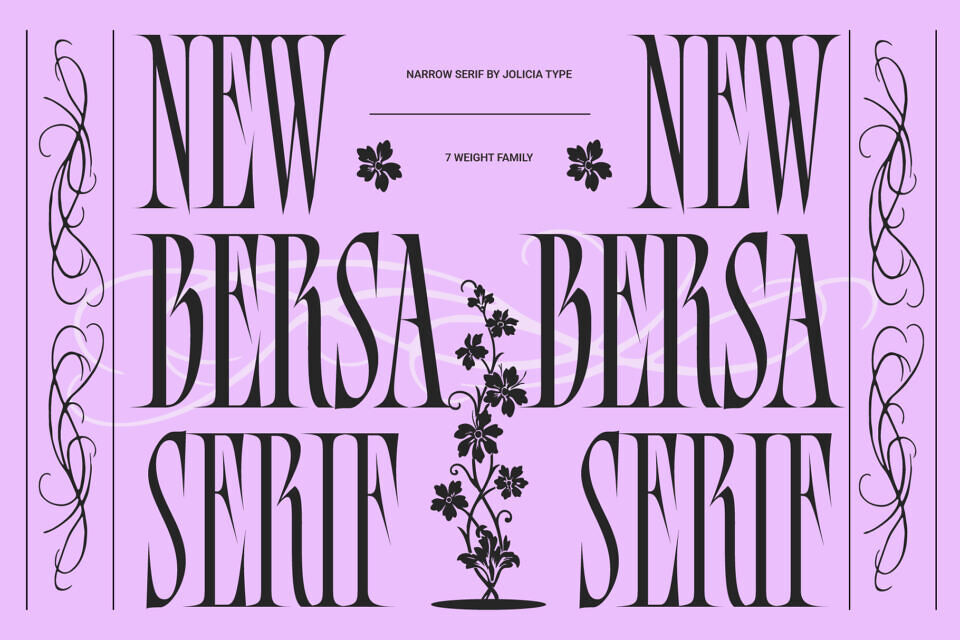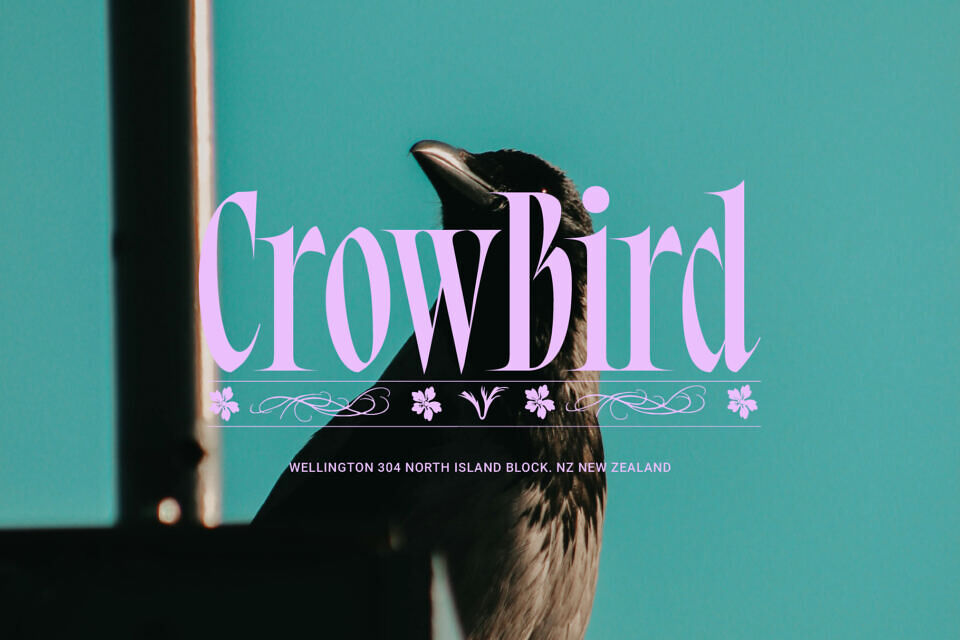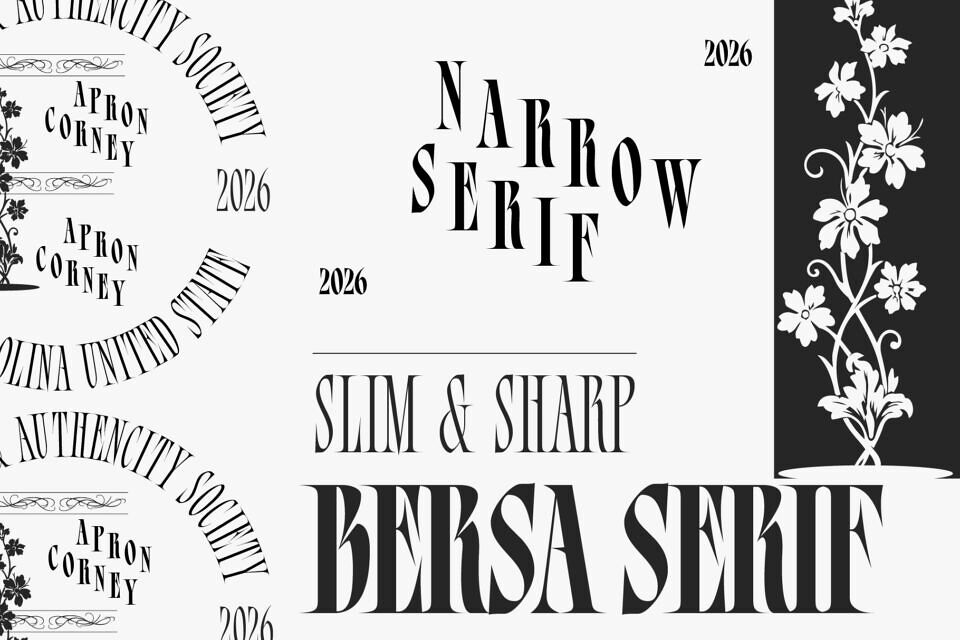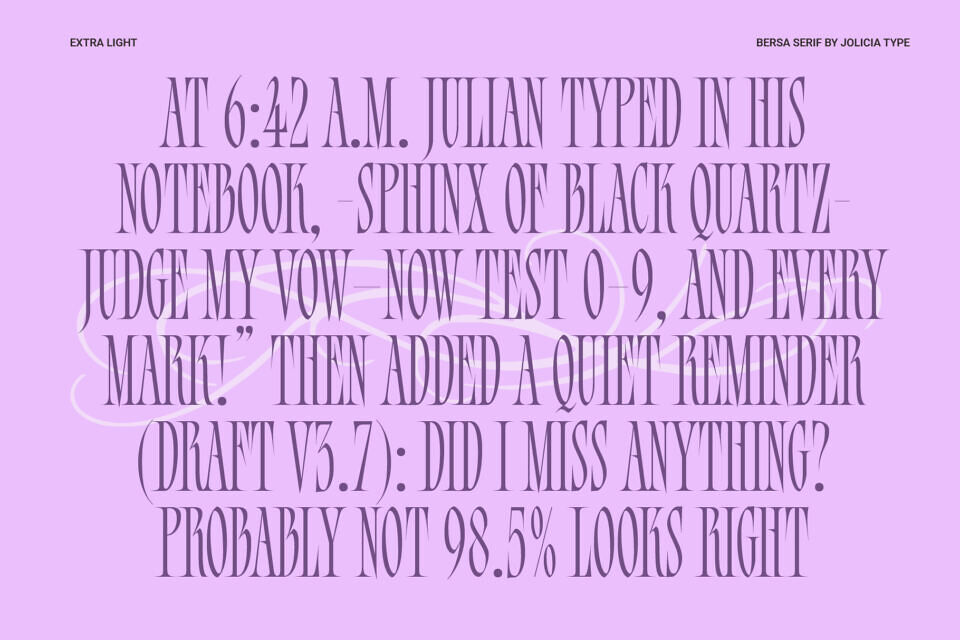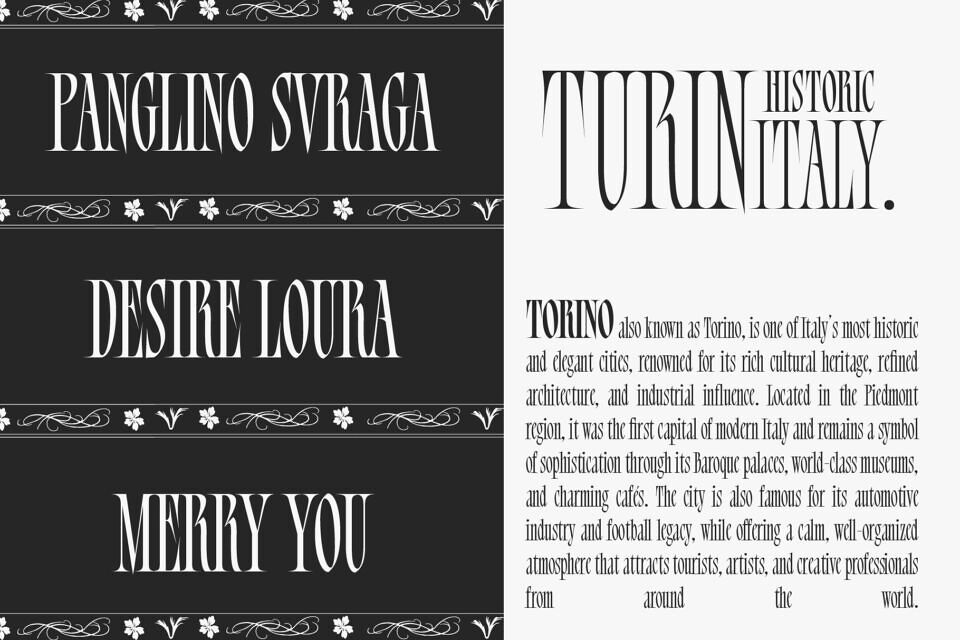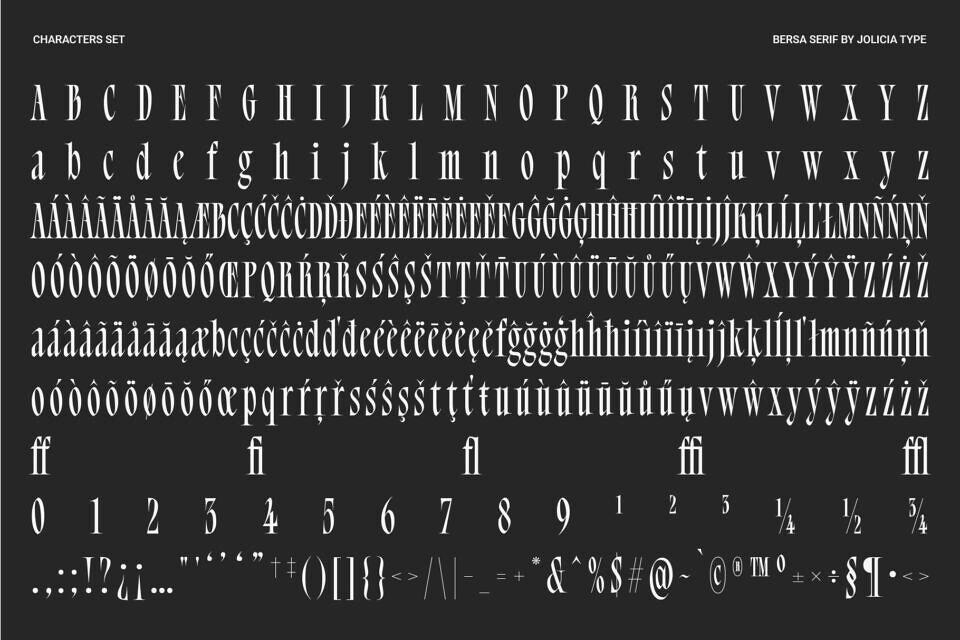
Bersa Serif Font
Bersa Serif is a narrow serif typeface featuring sharp, pointed terminals and subtle blackletter pen strokes, creating a bold, elegant, and distinctive character. Designed with a slim and condensed proportion, it maximizes space efficiency while maintaining strong visual impact.
With 7 weights ranging from Thin to Bold, Bersa Serif offers excellent flexibility for various design needs. Its blend of classic structure and modern expression makes it ideal for headlines, branding, posters, editorials, and display designs that demand a powerful, refined, and premium appearance.